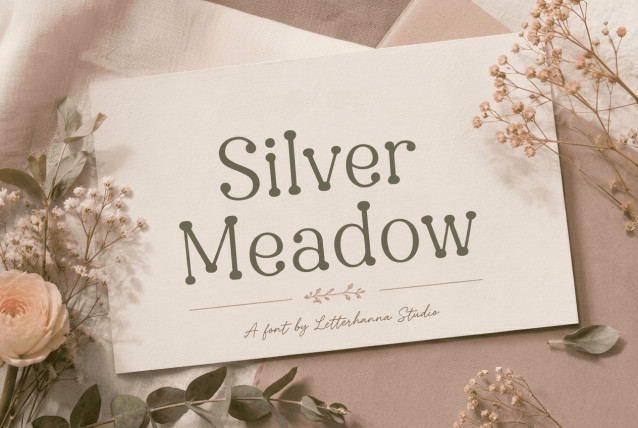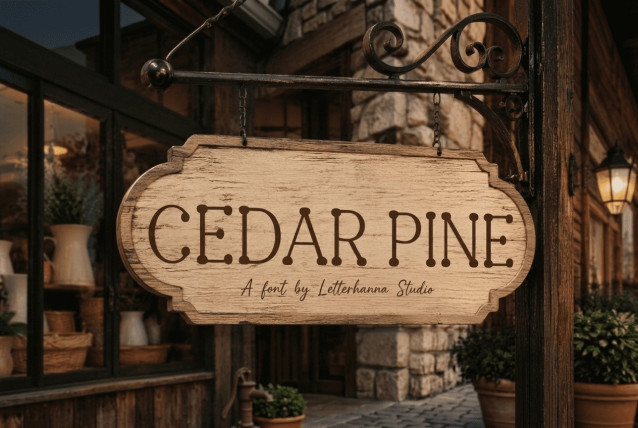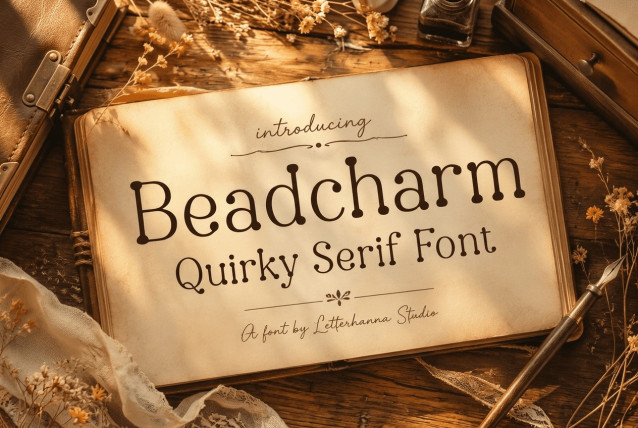
Beadcharm Only Font
Beadcharm: A Weird and Wonderful Font with Circle Serif Detail You’ll Love
Every once in a while, a typeface comes along that doesn’t just fill space on a page — it tells a story. Beadcharm is one of those fonts. Picture a jewelry maker stringing tiny beads onto delicate thread, one by one, patiently, until a whole necklace takes shape. Now imagine that same patience applied to letterforms, where instead of thread you have strokes, and instead of beads you have small circular terminals sitting at the end of every serif. That’s Beadcharm.